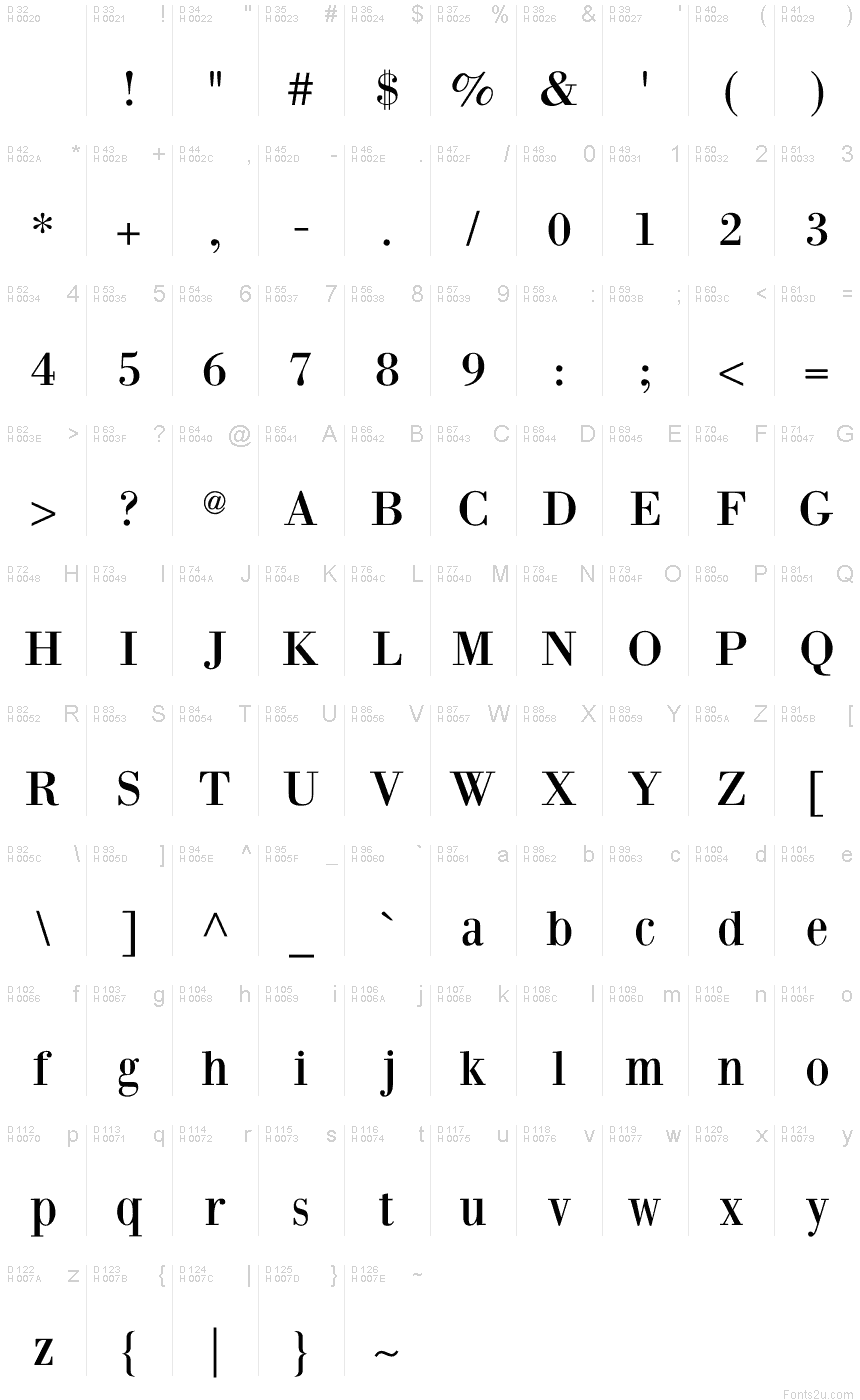
BodoniXT
Bodoni XT font by M. Klein is a free serif typeface that channels classic editorial luxury with a sharp, inky bite. The tall, disciplined letterforms, slim connecting strokes, and firm slab-like bases echo fashion mastheads and vintage book titles, giving every word a tailored, runway-ready presence. It feels crisp and deliberate, as if each letter were carefully set with metal type and pressed into thick paper.
Using Bodoni XT, you can give magazine covers, beauty packaging, restaurant logos, book jackets, posters, and invitations a polished, high-end voice. This free font shines at larger sizes where its slender details stay clean and dramatic; for supporting text or menus, pair it with a calm geometric sans to keep layouts balanced and readable.